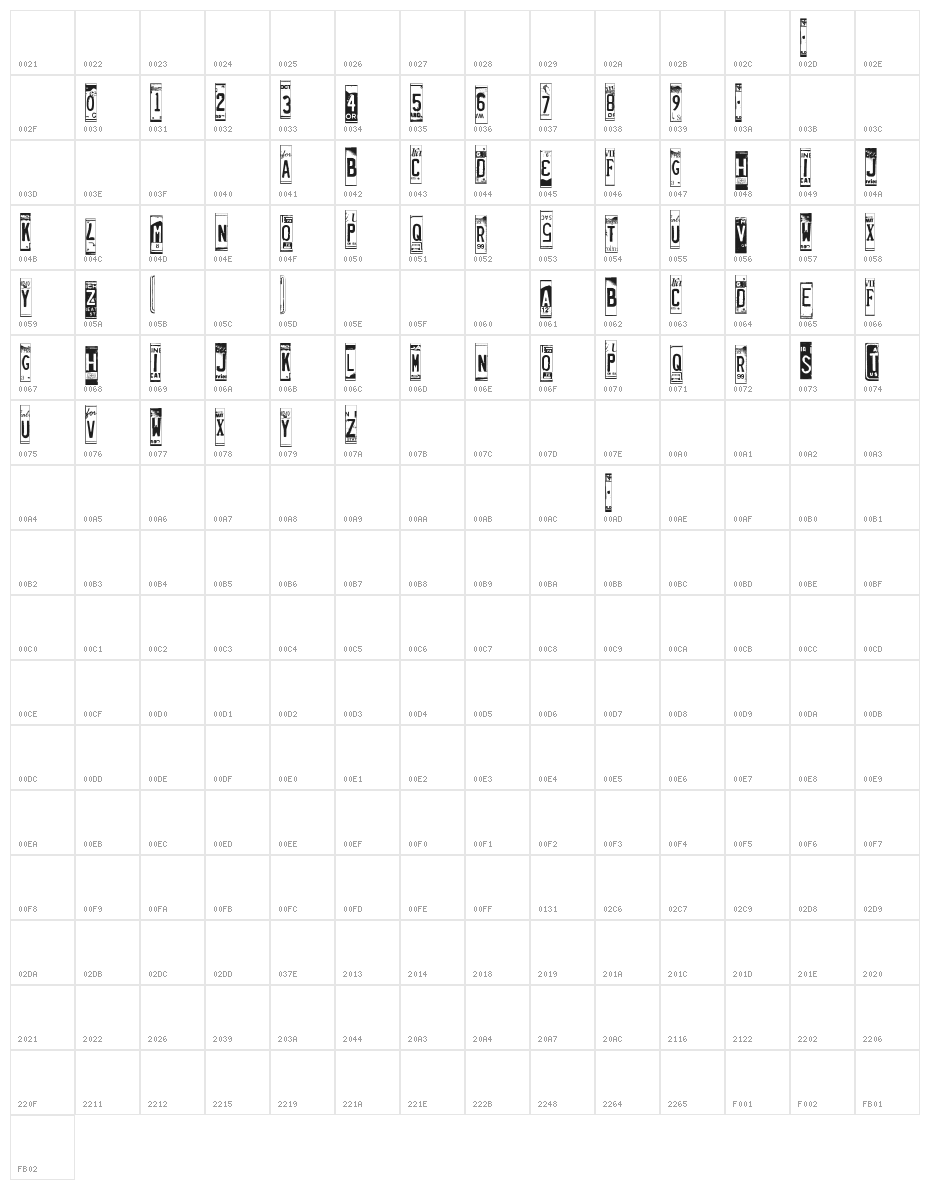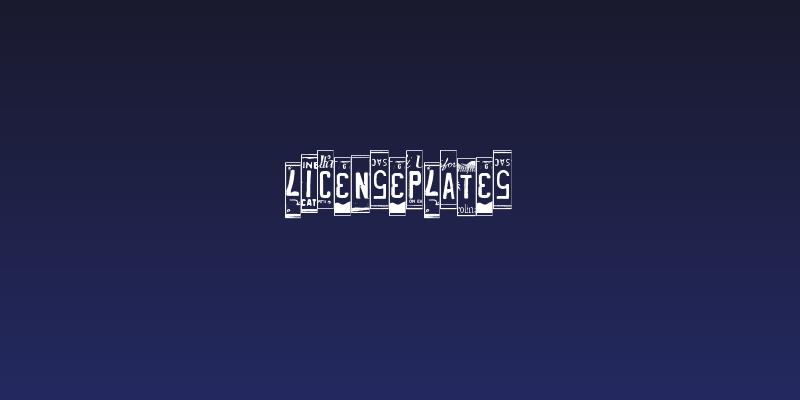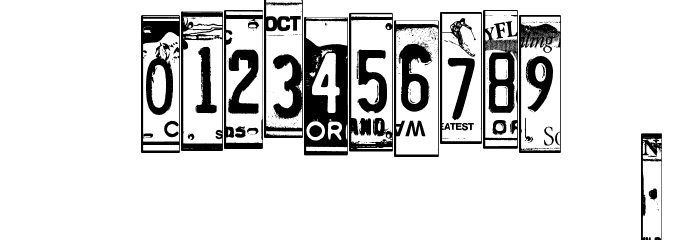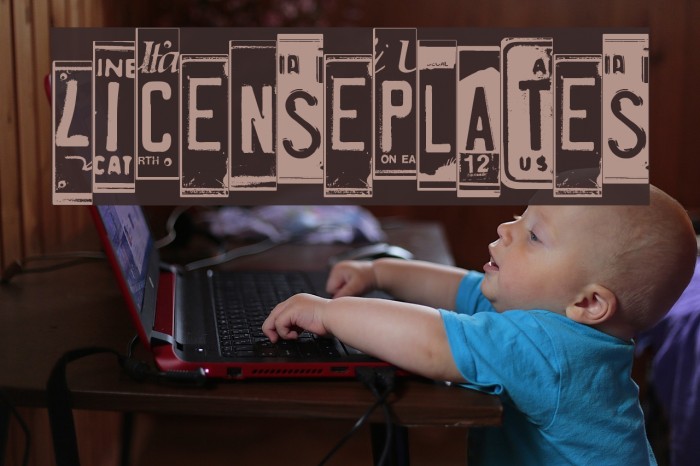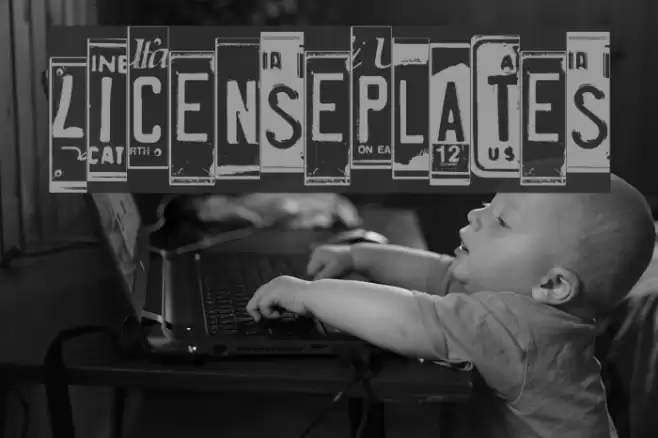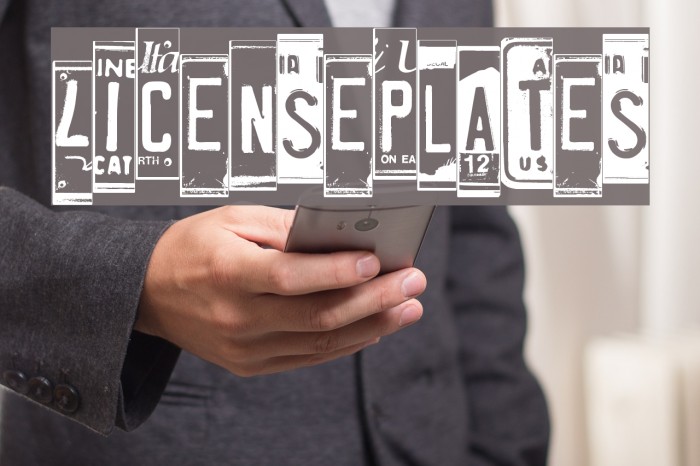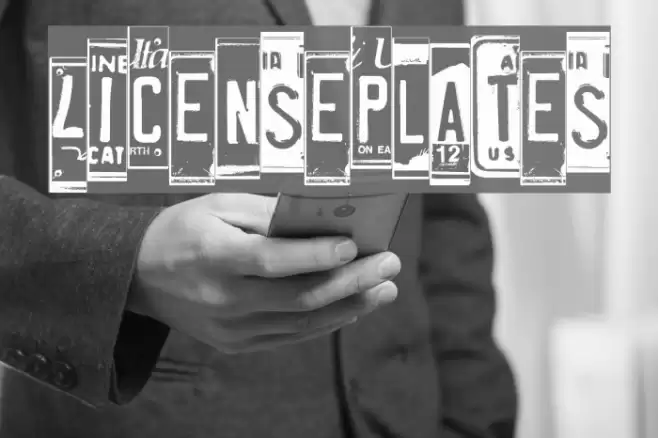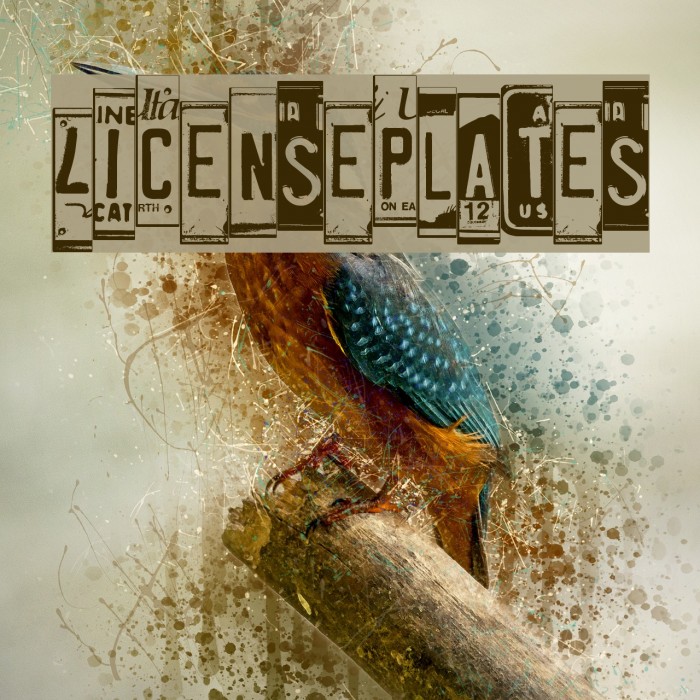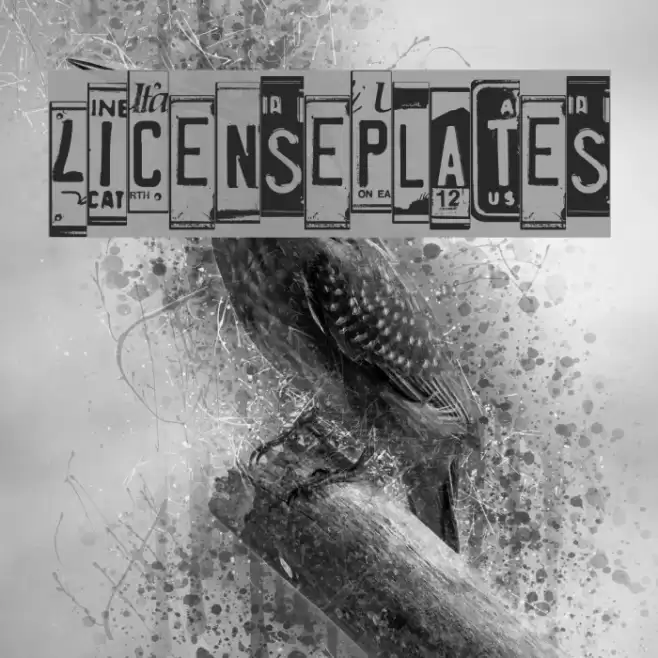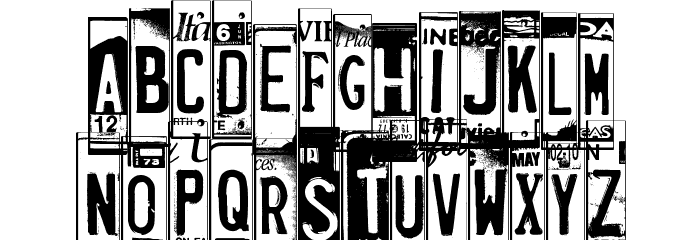
LicensePlates Font
LicensePlates Description
This font is a creative and eclectic collection of characters, each styled to resemble elements from vintage license plates. The letters and numbers are bold and distinct, with varying widths and heights that mimic the diverse typography found on old vehicle plates. The characters are enclosed in rectangular frames, adding to the authenticity of the license plate aesthetic. This design is highly decorative, with a playful and nostalgic feel, making it ideal for projects that require a retro or automotive theme. The font's unique style captures the essence of mid-20th-century Americana, offering a visually engaging experience.
| Overall Style | Vintage |
| Use Case | Logos, Headlines, Posters |
| Proposed Projects | Ideal for retro-themed designs, automotive branding, vintage posters, and creative displays. |